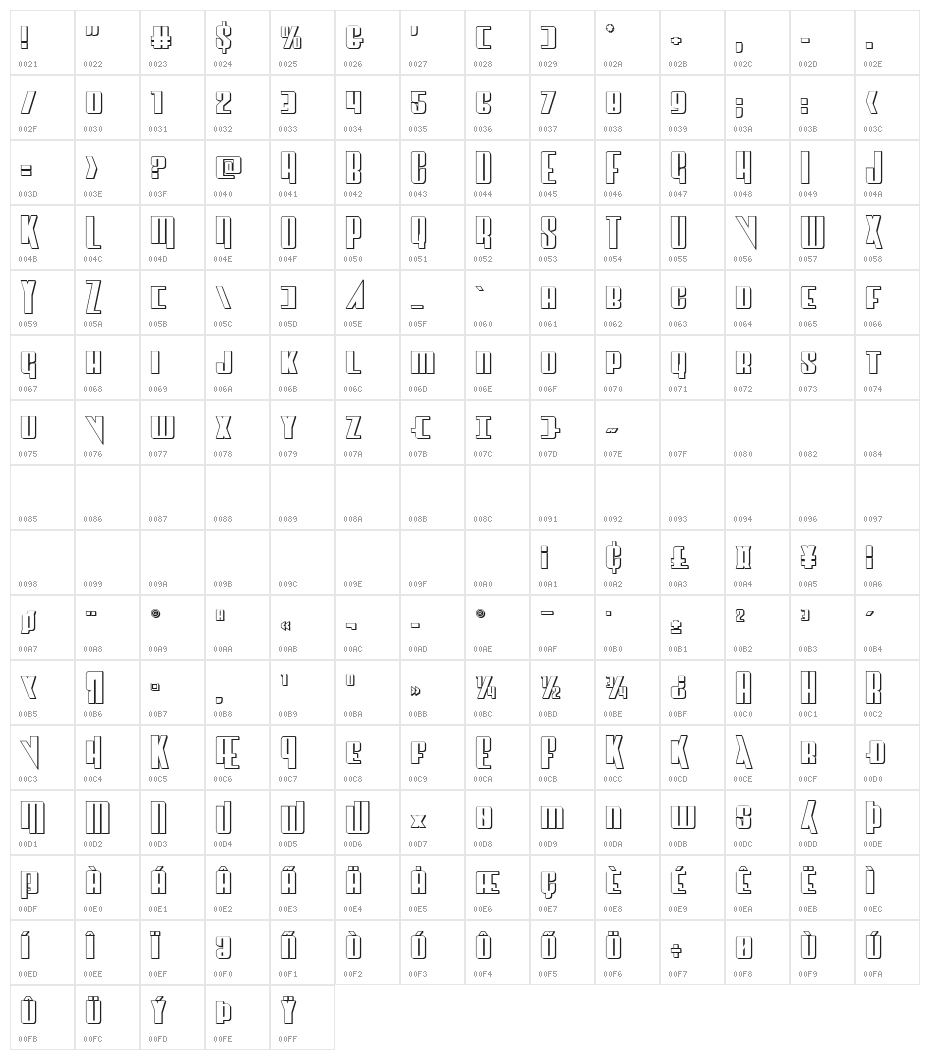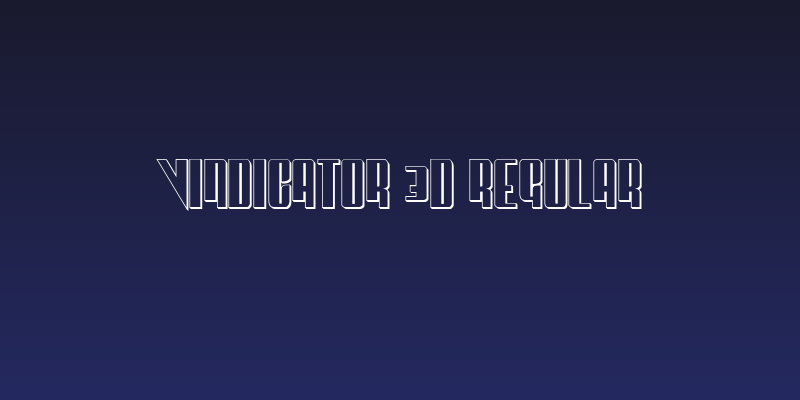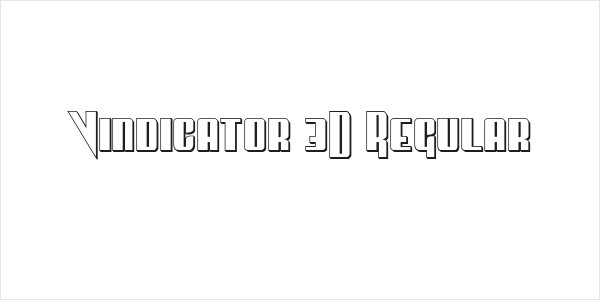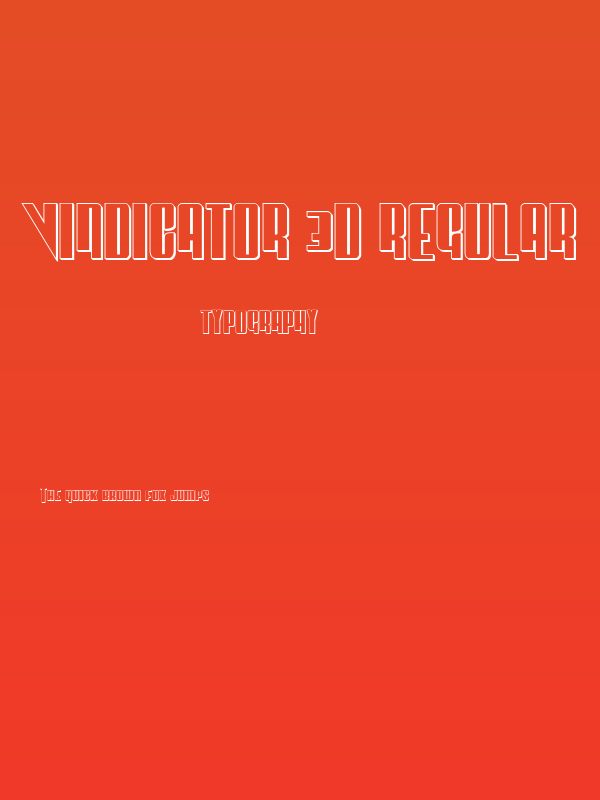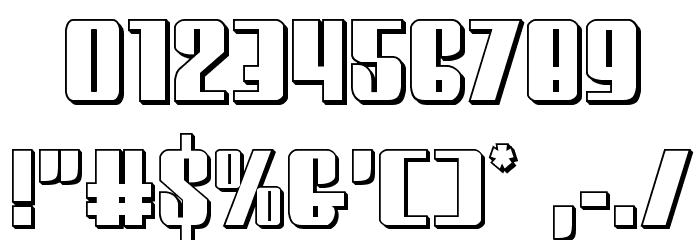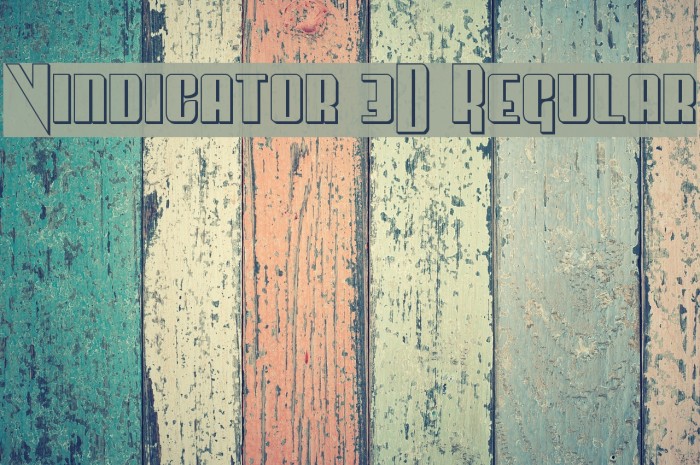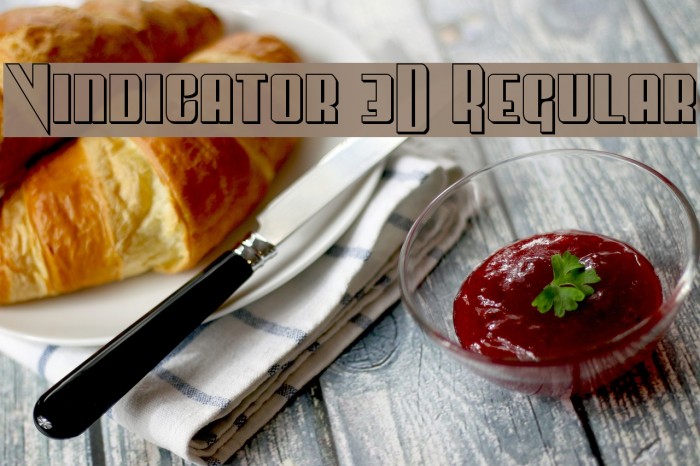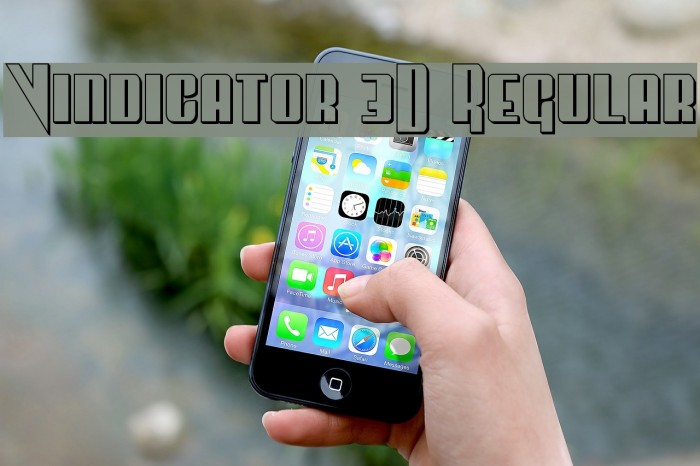
Vindicator 3D Regular Font
Vindicator 3D Regular Description
This font features a bold, three-dimensional design with a strong, impactful presence. The characters are outlined with a thick border, giving them a blocky and robust appearance. The uppercase letters are uniform in height, while the lowercase letters maintain a consistent style, enhancing readability. Numbers and special characters are designed to match the bold aesthetic, making them stand out prominently. The font's geometric structure and sharp angles contribute to its modern and industrial feel, making it suitable for attention-grabbing designs.